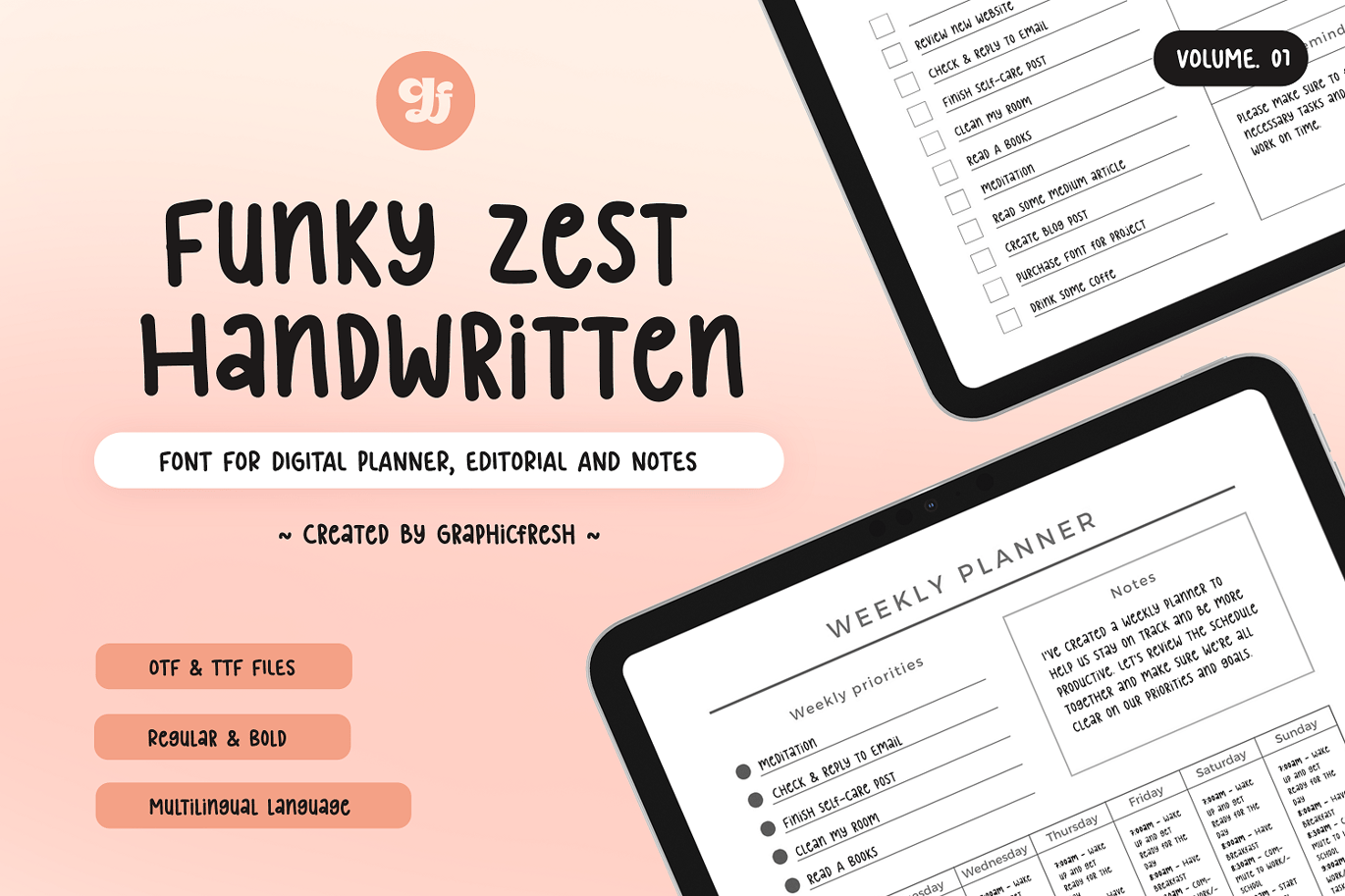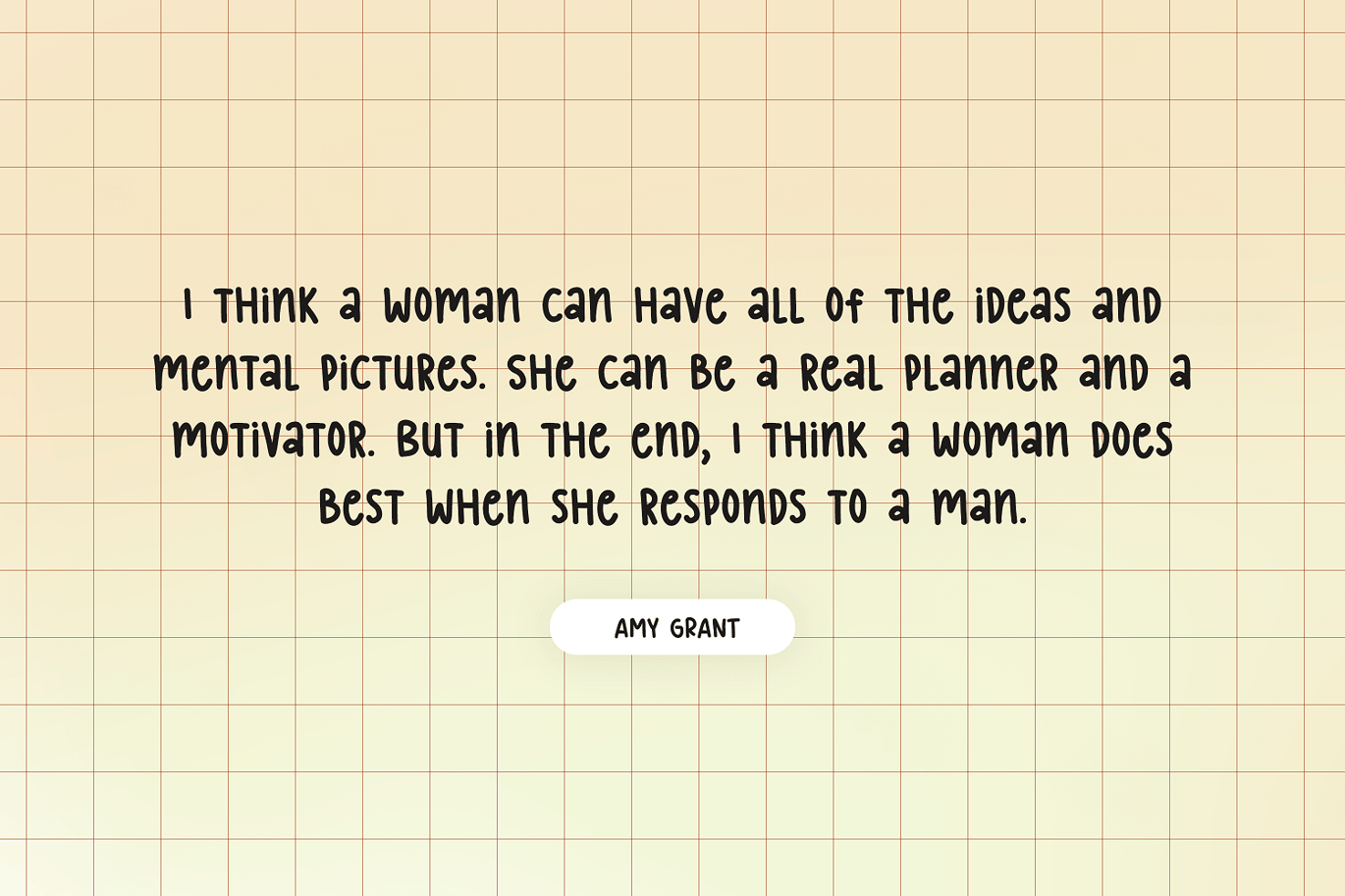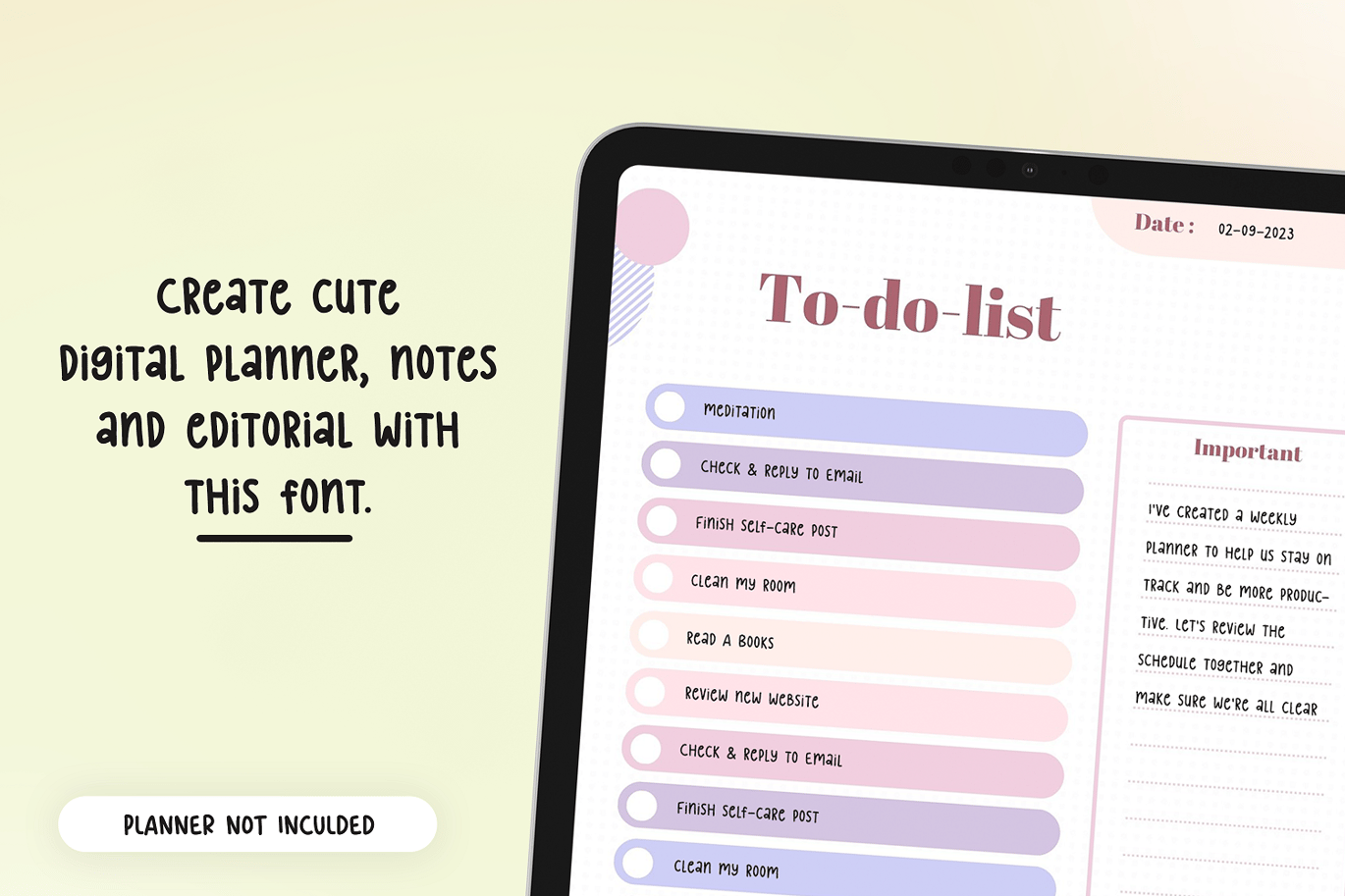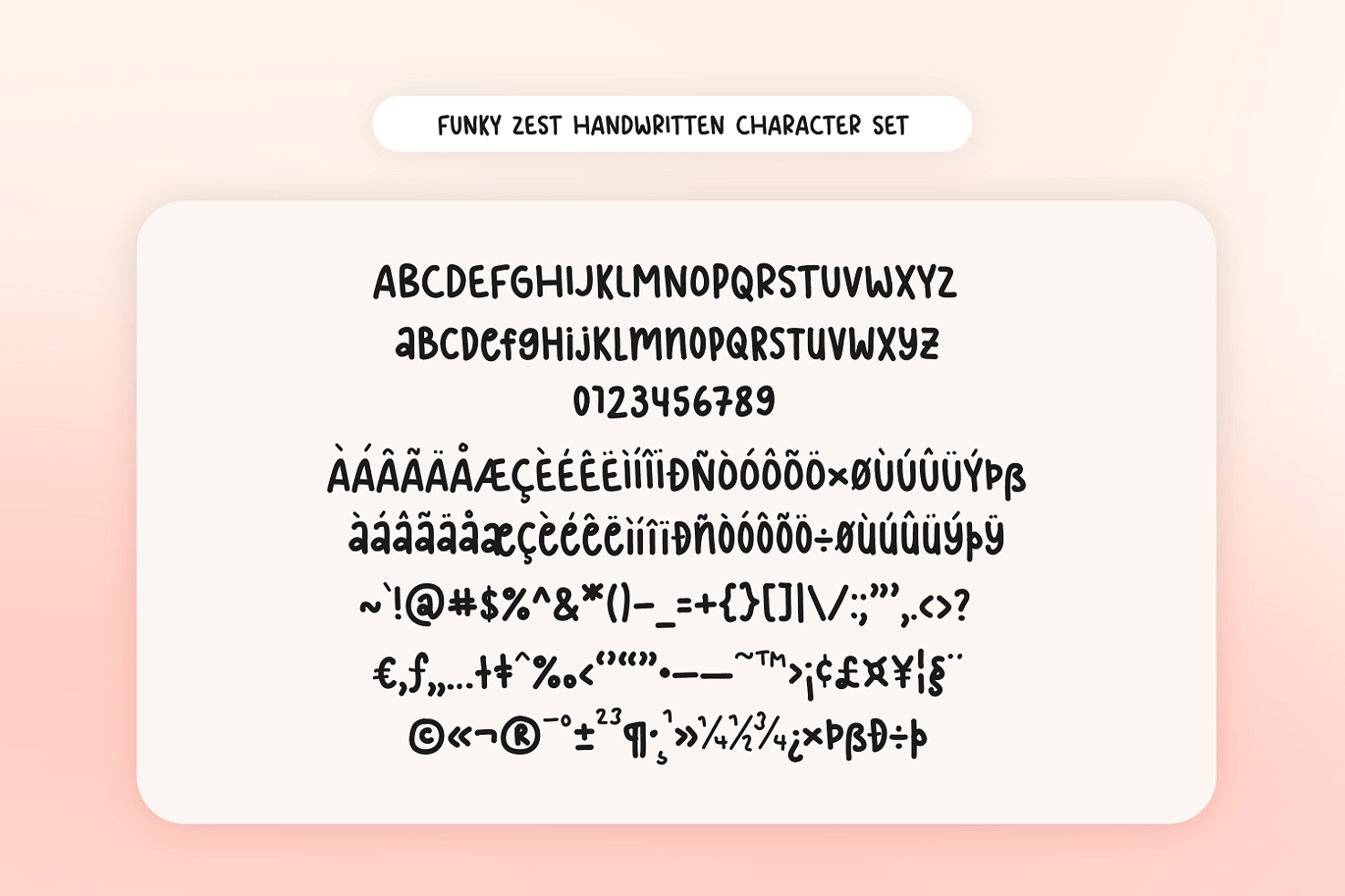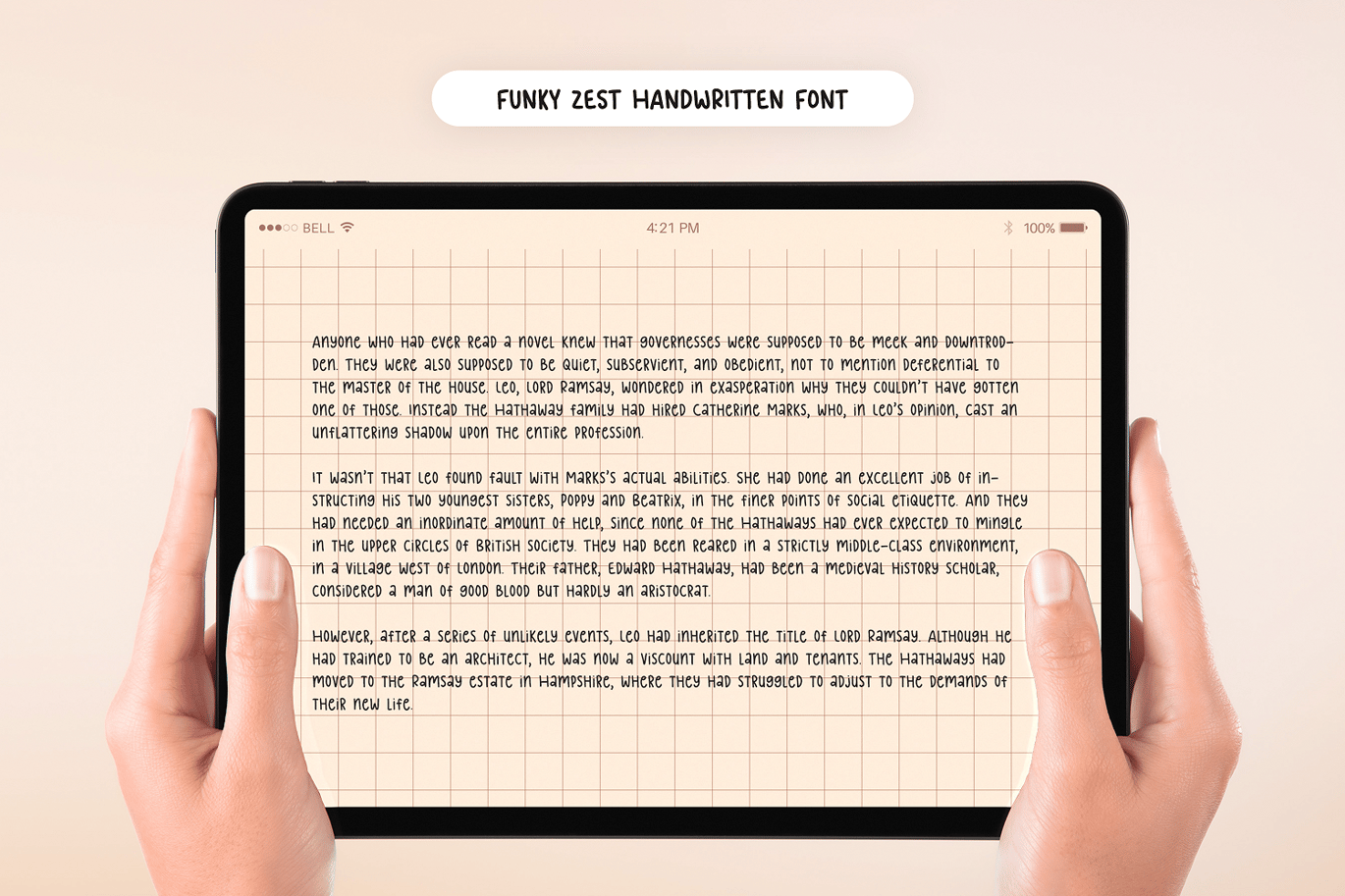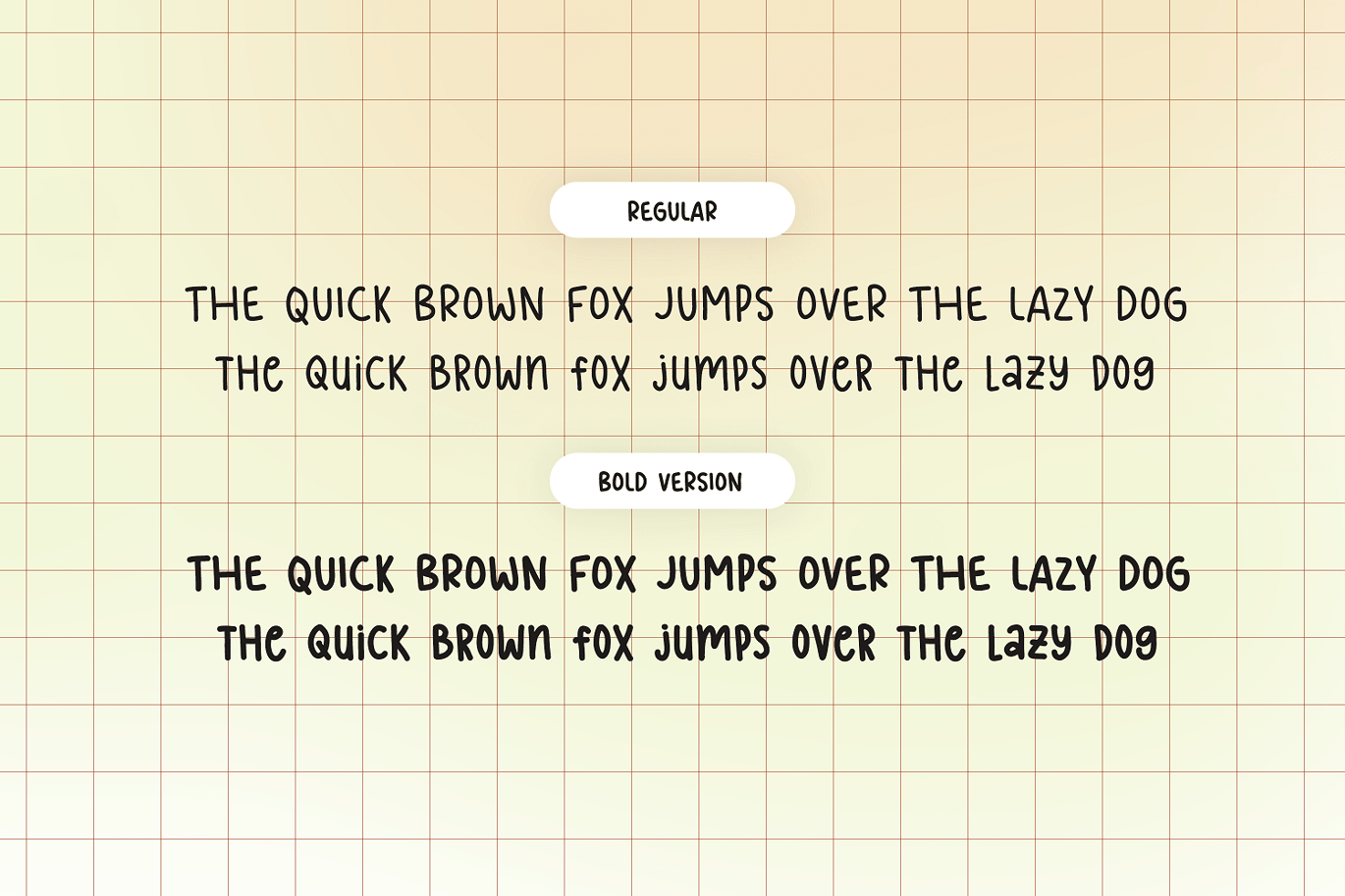
Funky Zest – Digital Planner Font
Introducing our new font, perfect for your digital planner on GoodNotes! With a unique handwriting style, our font adds and cute touch to your digital notes. Its modern and minimalist design is perfect for anyone who loves a simple yet stylish aesthetic. Use it to customize your digital planner and make it truly one-of-a-kind. Whether you’re a student, professional, or just someone who loves to stay organized, our font is the ideal tool to help you take your digital notes to the next level. Compatible with GoodNotes and other popular digital planners, our font is easy to use and will give your notes a professional look. So why settle for a boring font? Start customizing your digital planner with our unique and stylish handwriting font today!
- Funky Zest – A Regular and bold version, handwriting font including upper & lowercase characters, numerals, and more symbols.
- Multilingual support for various languages